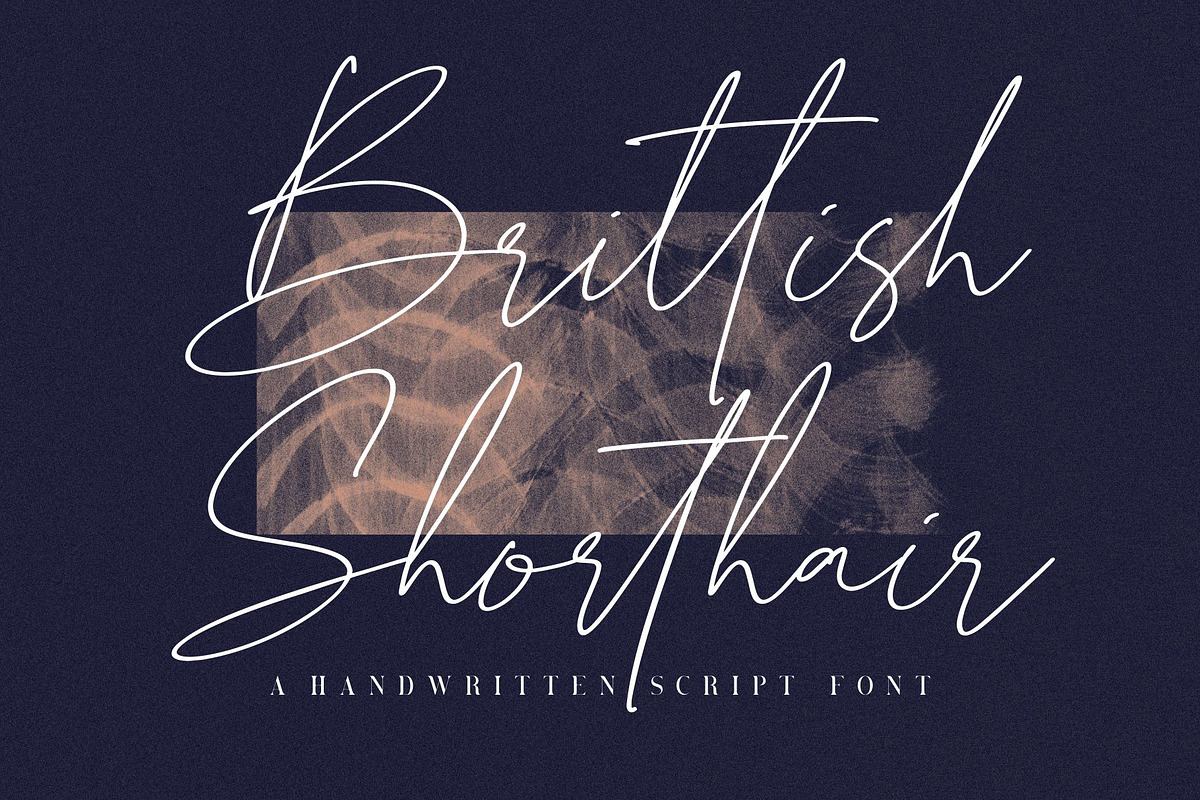
Brittish Shorthair Script Free Download
Brittish Shorthair Script Font Free Download
The Brittish Shorthair Script Font Free Download is a classy and flowing handwritten typeface that exudes elegance and charm. Inspired by vintage calligraphy with a modern twist, this font is ideal for wedding invitations, boutique branding, personal logos, elegant packaging, and lifestyle blog graphics.
Its smooth, stylish strokes and well-balanced characters make it perfect for adding a signature look to your designs. Brittish Shorthair comes with alternates, ligatures, and multilingual support, allowing for plenty of creative flexibility while maintaining a polished, sophisticated appearance.